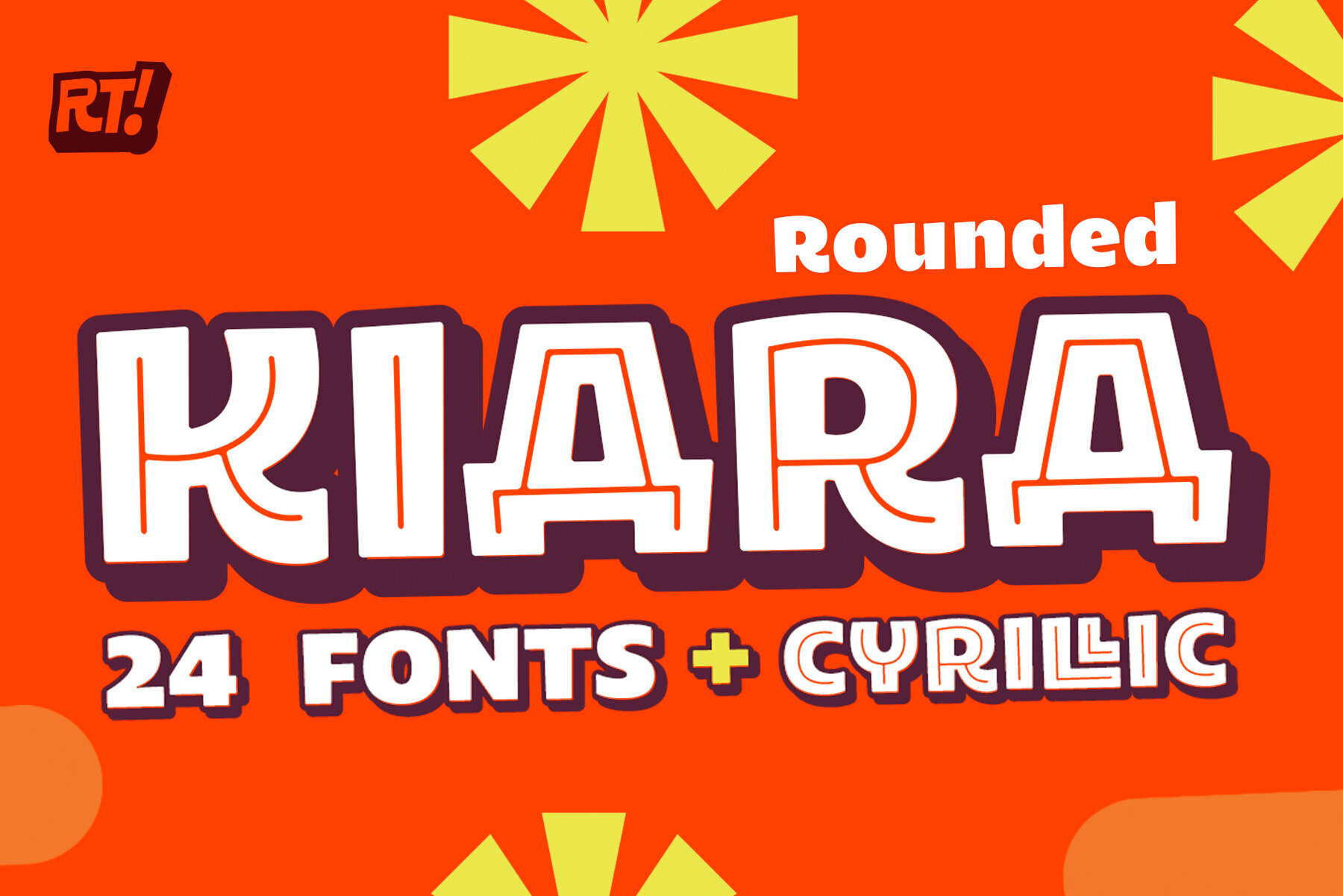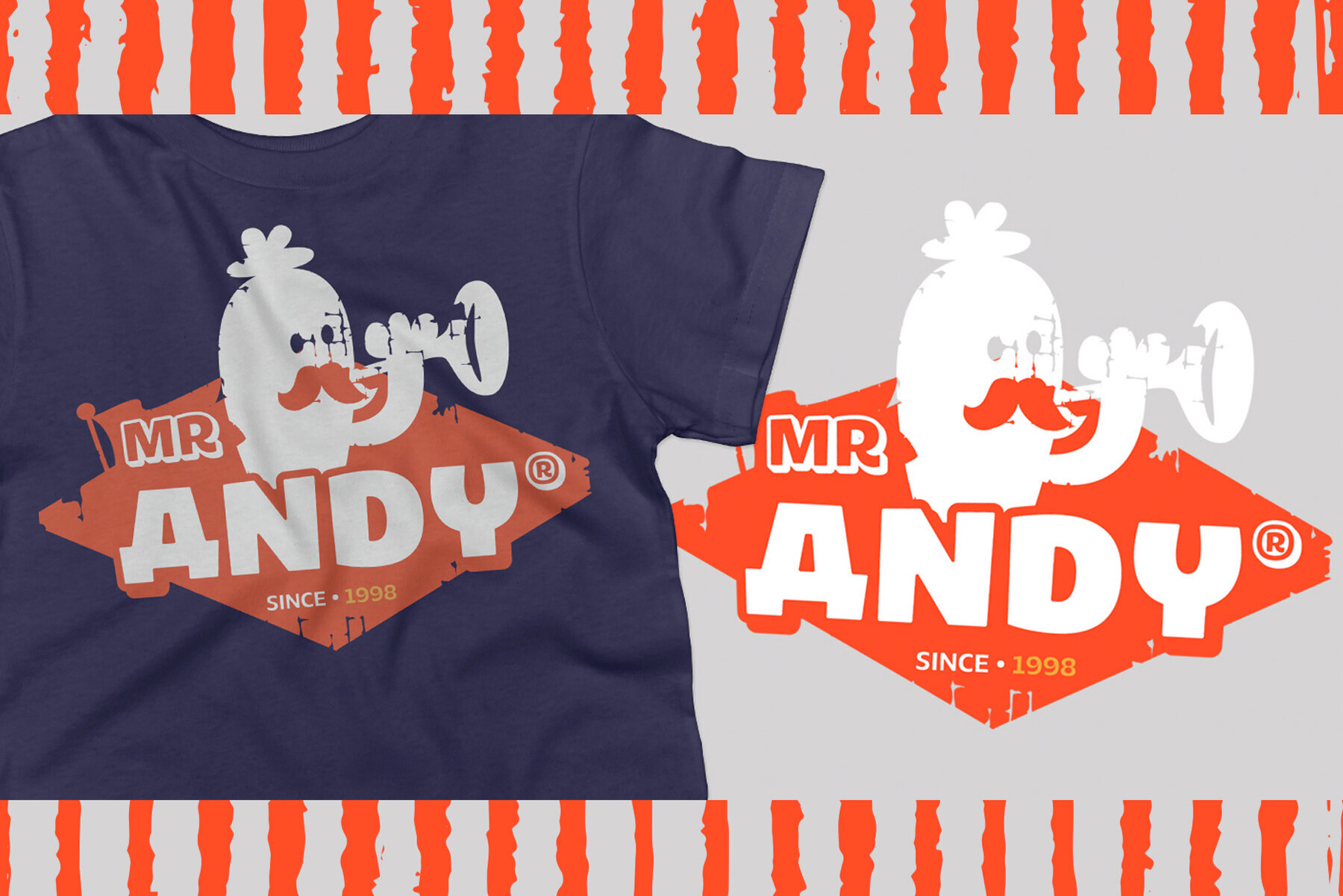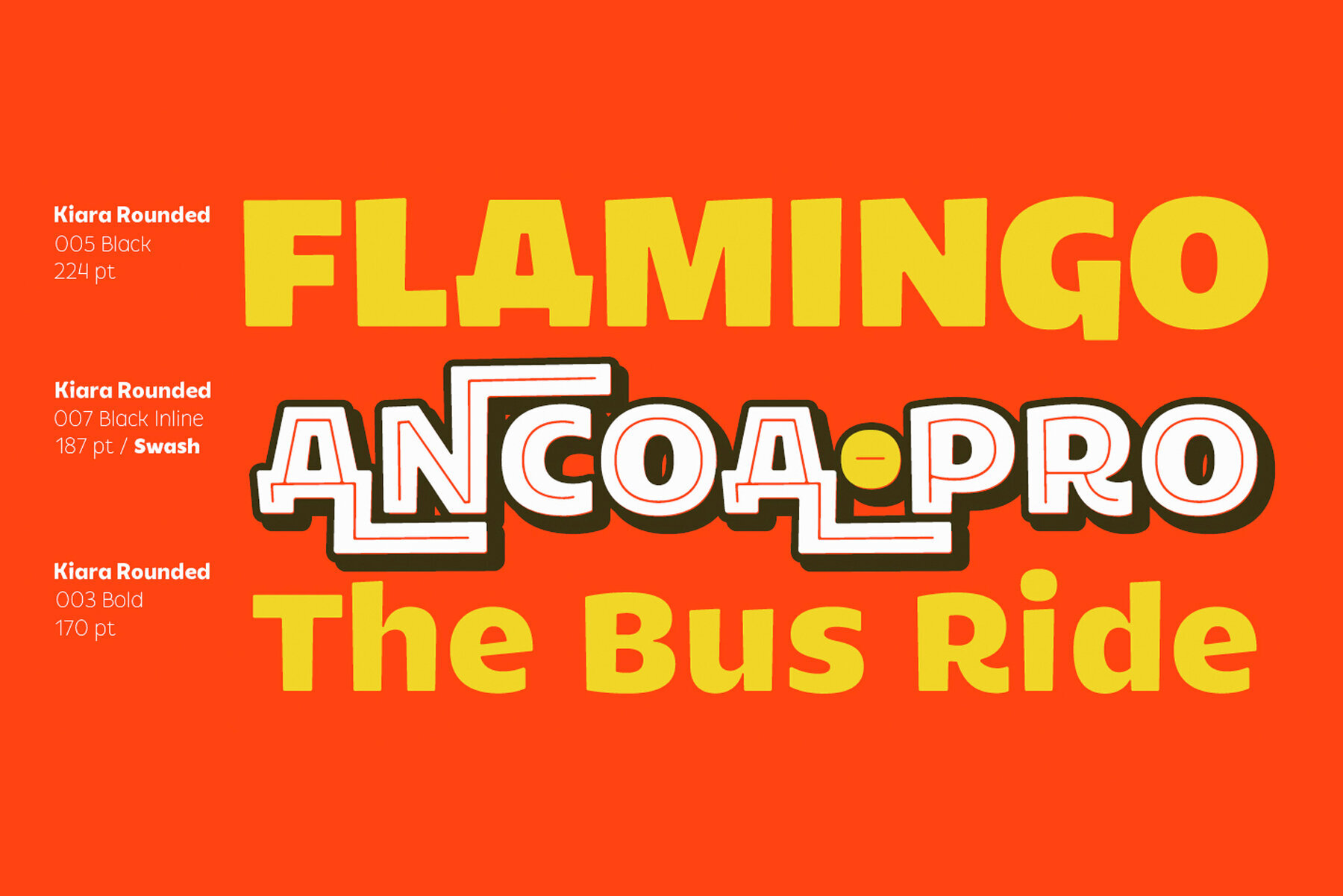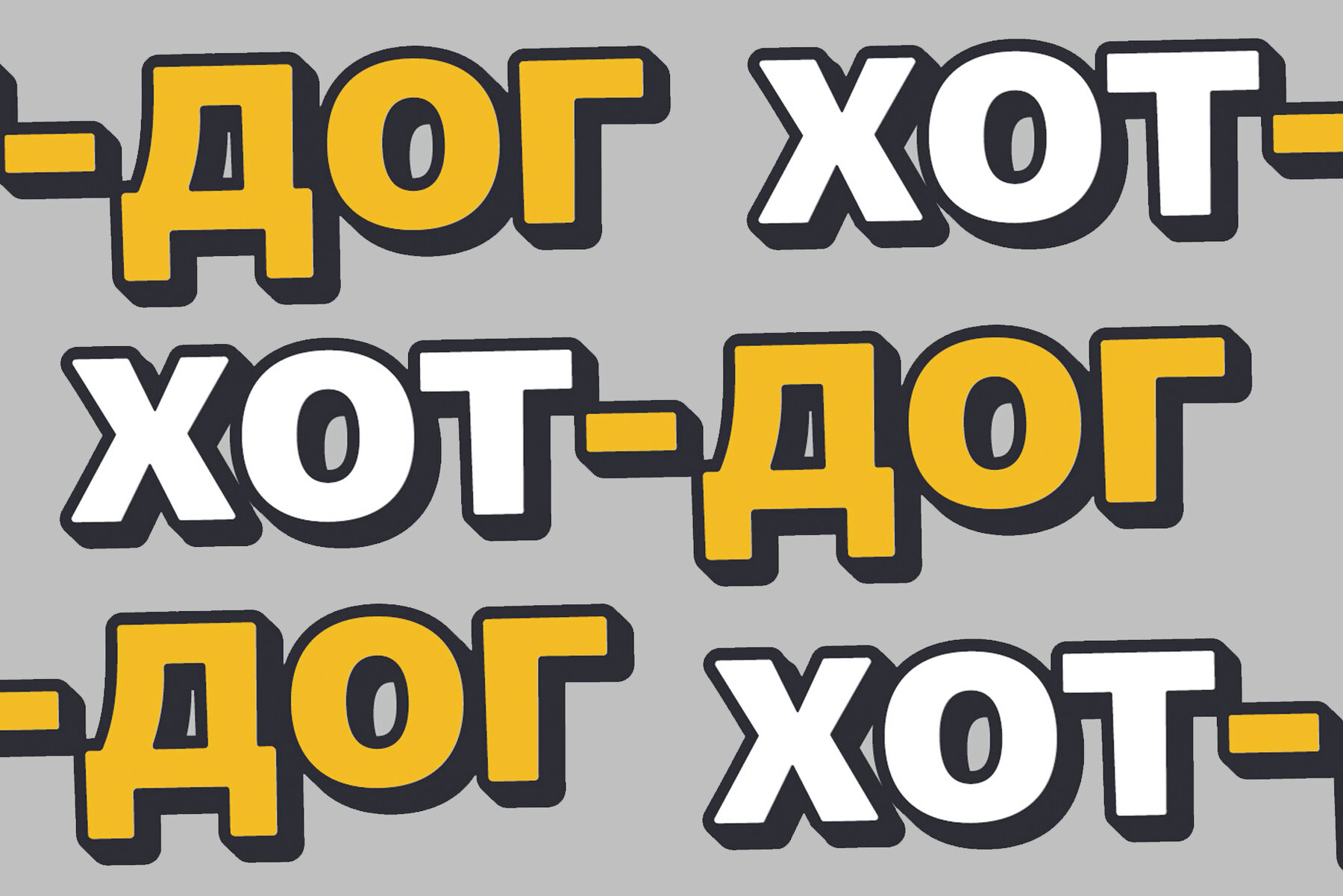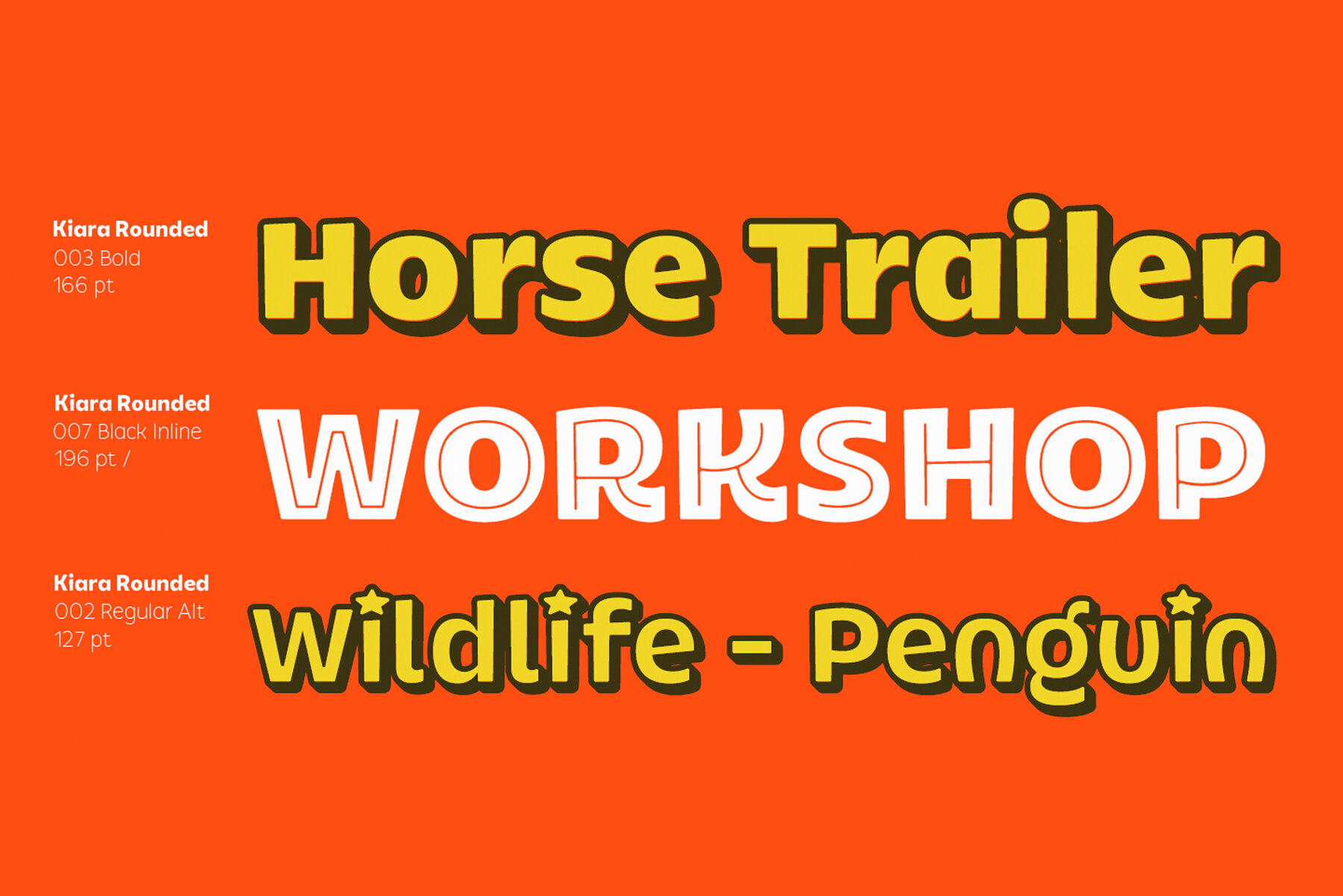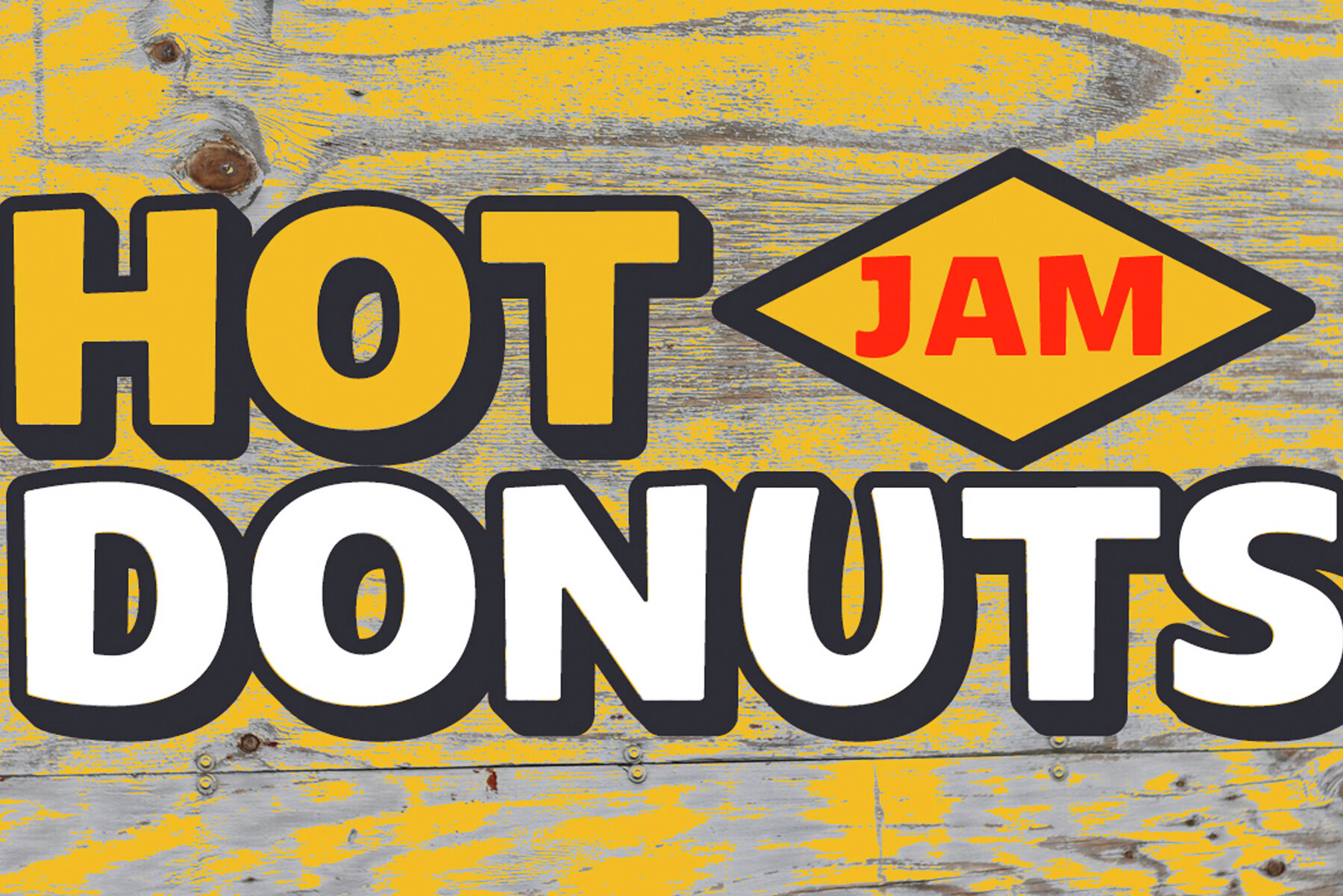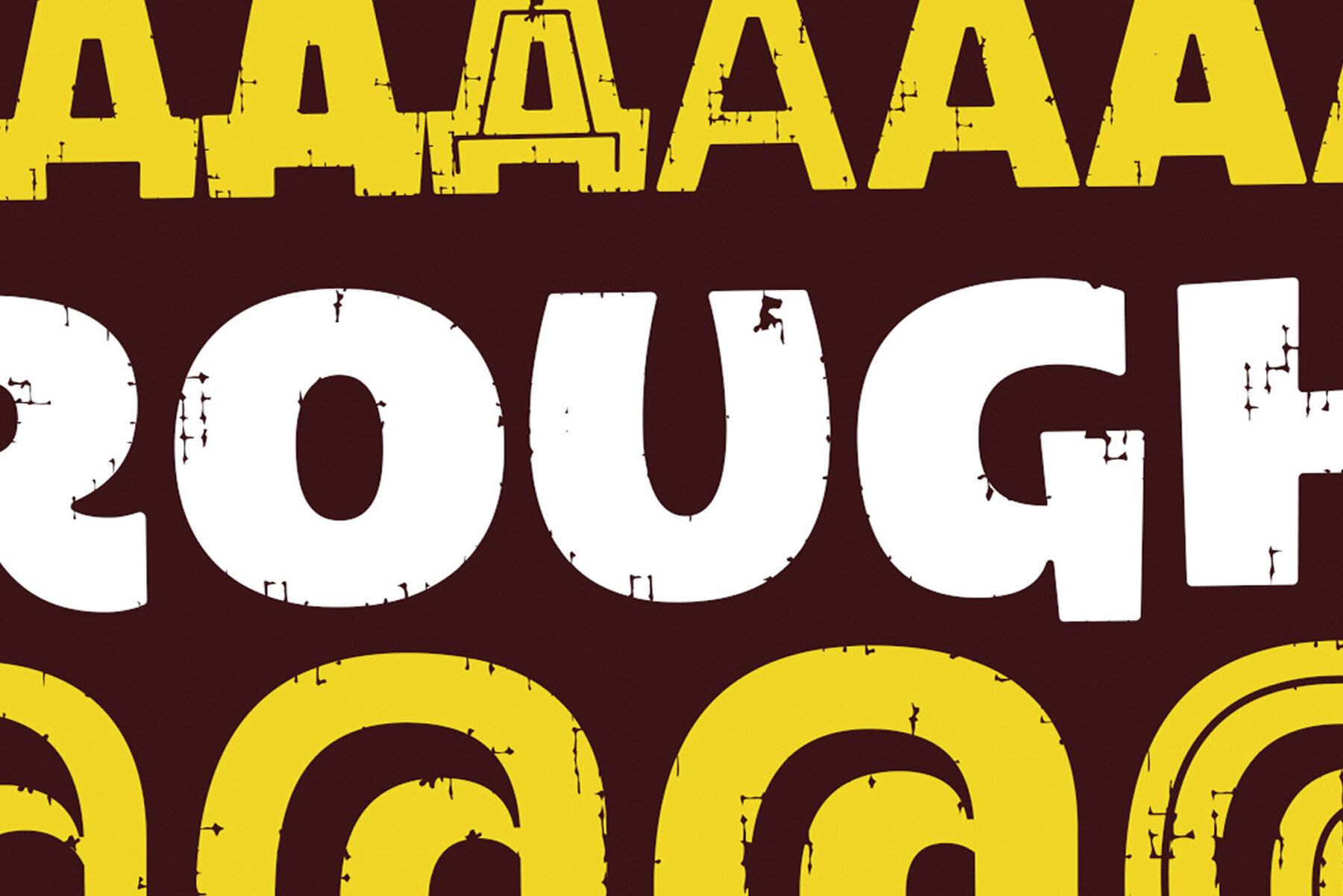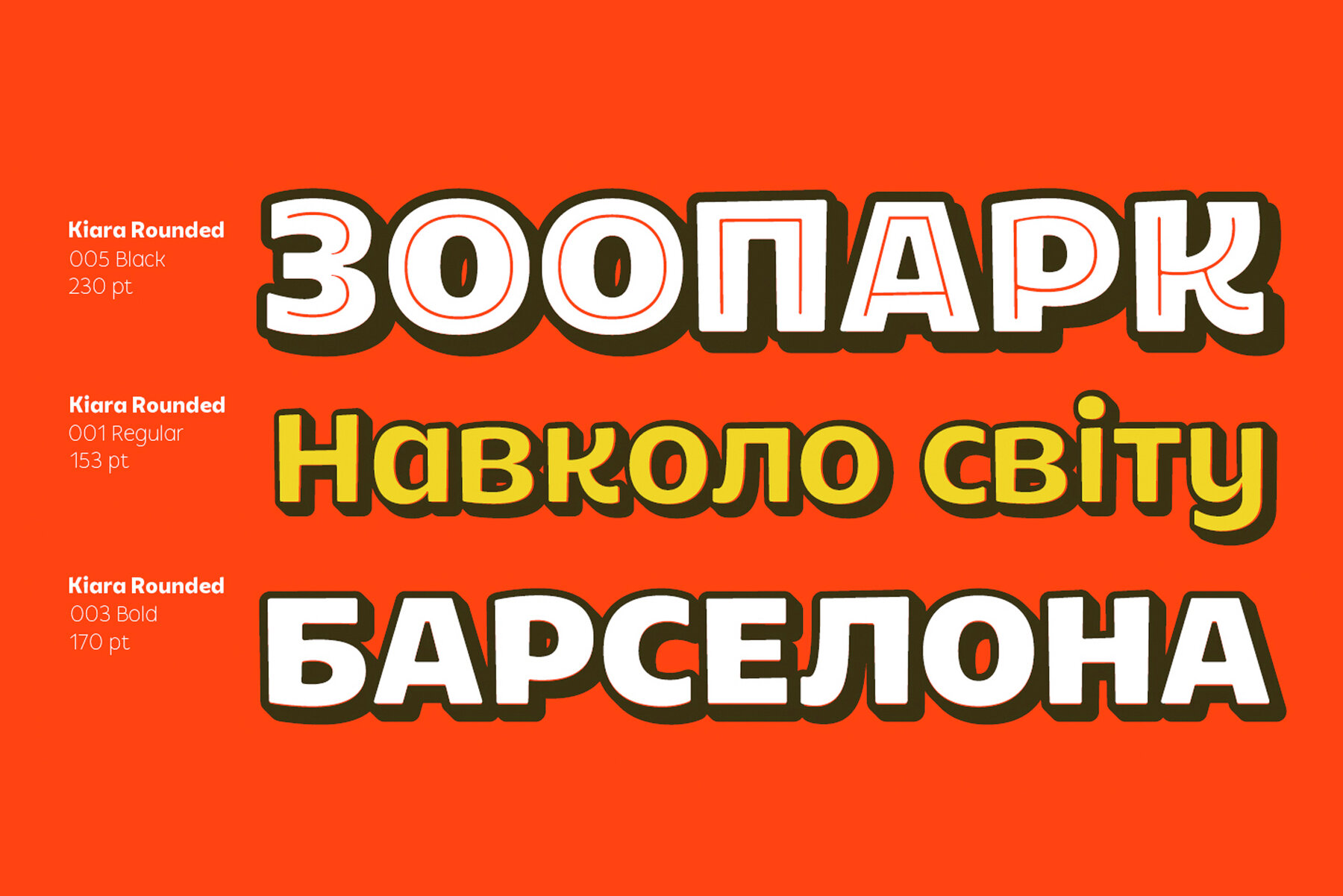
Kiara Rounded Font
Discover the versatile charm of Kiara Rounded, an adaptation of the classic Kiara typeface, now featuring soft, rounded edges that lend a modern yet approachable feel to your design projects. This font offers extended functionality with the inclusion of the Cyrillic alphabet, making it perfect for diverse language support. With its clean and contemporary style, Kiara Rounded seamlessly integrates into a variety of design contexts, from digital interfaces to print media.
In addition to its rounded character set, Kiara Rounded is equipped with a range of alternative characters and a rough variant, providing creative flexibility. Whether you’re designing a brand identity, crafting engaging visuals for social media, or experimenting with innovative typographic layouts, this font enhances your work with its blend of simplicity and personality. Embrace the multidimensional design potential of Kiara Rounded to create captivating visual narratives.